Choosing the best font for logo designer in 2025 is essential to create a memorable, impactful brand identity. Today’s logo fonts vary from bold geometric sans-serifs, elegant serifs, vintage-inspired styles to creative scripts—each conveying a unique brand personality. This article explores 55 standout fonts for logo designers to consider this year, helping craft logos that resonate and captivate.
Logo Font Trends in 2025
Modern logo fonts embrace character and versatility. Popular directions include:
- Serif fonts: Sharp serifs, playful swooshes, and romantic terminals add elegance and flair.
- Sans-serif fonts: Clean, geometric, sometimes extended wide cuts for a modern look remain dominant.
- Minimal with tweaks: Subtle modifications to letterforms personalize minimal logos.
- Maximalist styles: Decorative, bold fonts push boundaries for unique brand expressions.
- Retro and vintage: Fonts inspired by 1970s styles and old signage add nostalgic authenticity.
55 Best Fonts for Logo Designers in 2025
1. Qasira
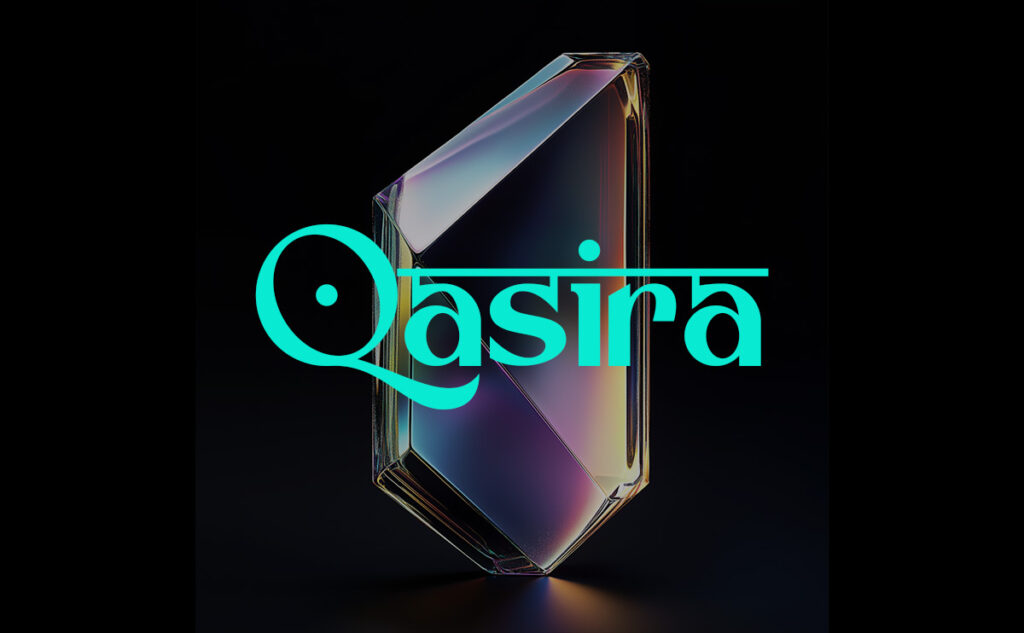
A modern sans-serif with calligraphic roots and elegant curves. Versatile for branding, invitations, and corporate design, with full multilingual support. Free for both personal and commercial use.
2. Groote
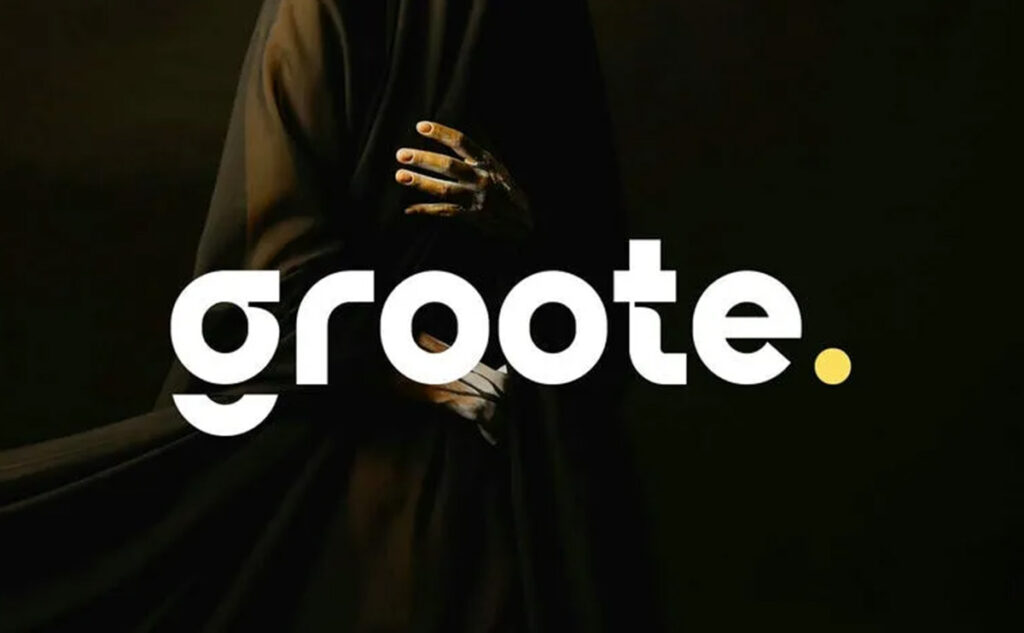
3. Biscotti
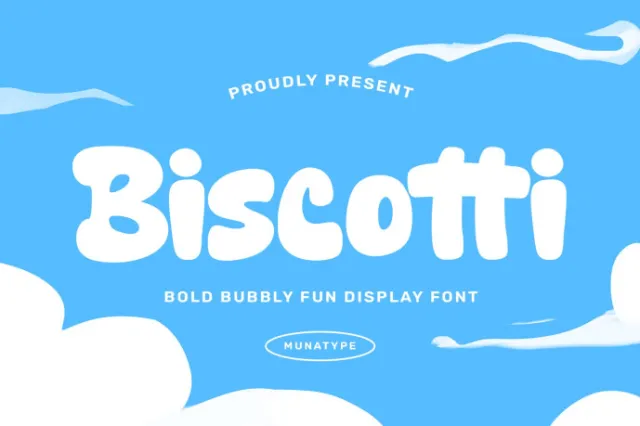
Biscotti is a bold, bubbly logo font by Munatype, featuring playful rounded letterforms that add a cheerful personality and strong impact to branding and packaging. Download Biscotti
4. Epic Pro
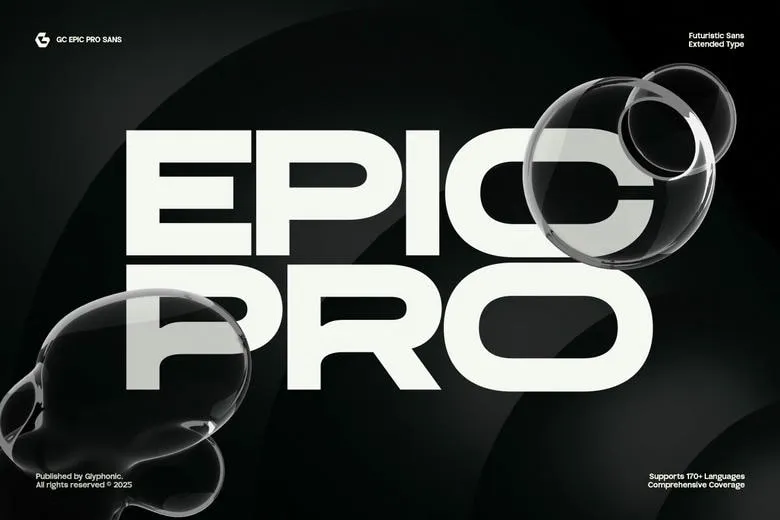
A futuristic extended sans-serif with a strong tech vibe, perfect for sports logos, sci-fi themes, and digital branding. Free for personal use; commercial license required. Download Epic Pro
5. Nativera
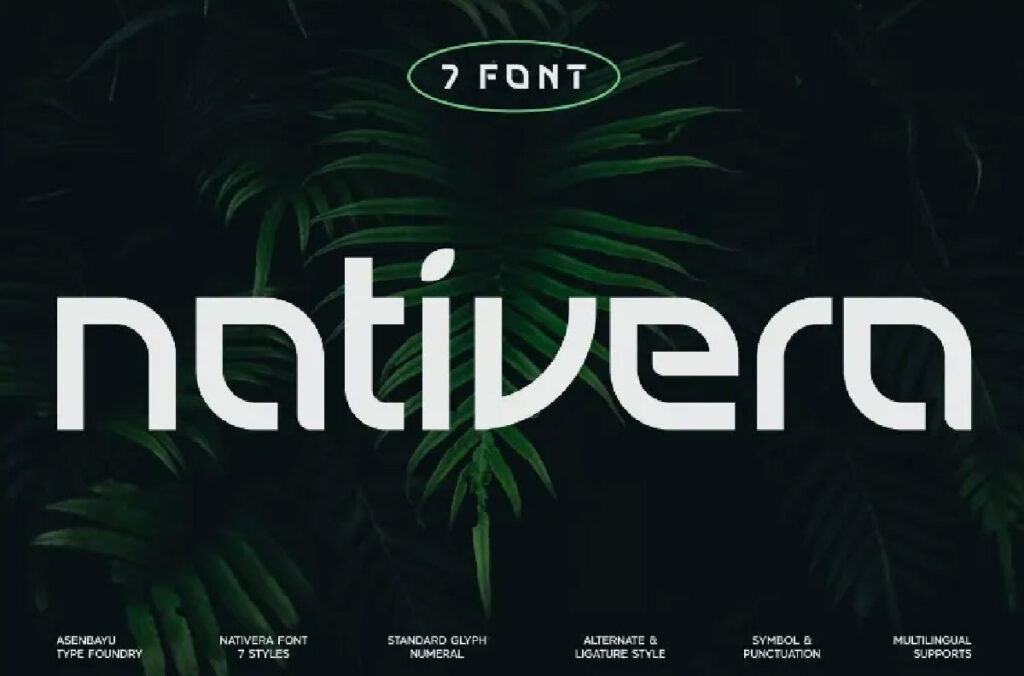
A geometric sans-serif with nature-inspired details, blending modern structure with organic flair. Well-suited for editorial design and packaging. Download Nativera
6. Maqira Vintage
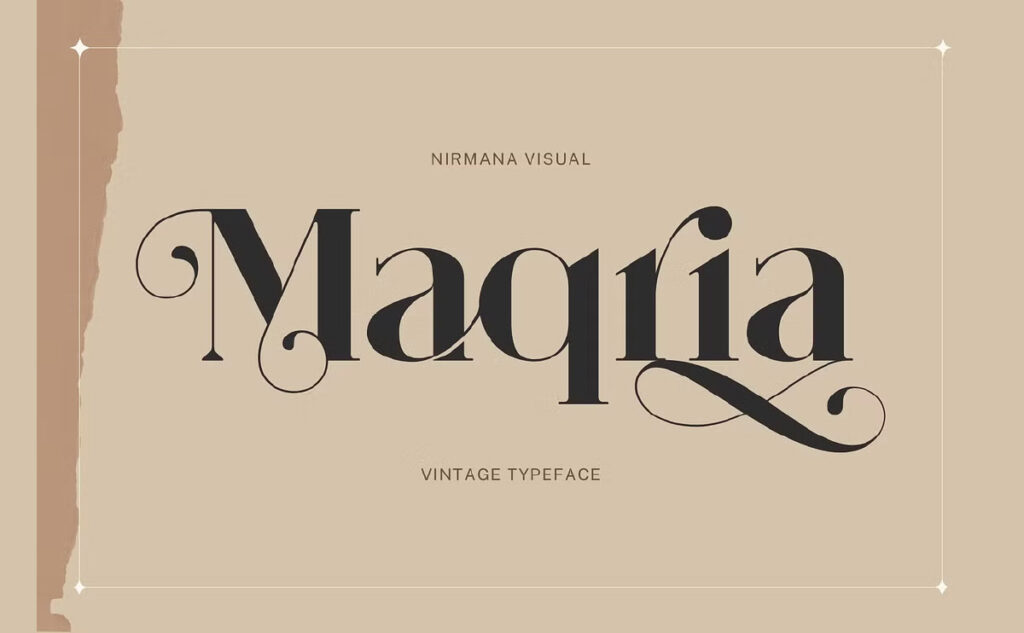
A vintage-inspired serif font that blends retro aesthetics with timeless elegance. Ideal for nostalgic branding, posters, packaging, and any design that needs an authentic, old-world character.
7. Doll Ghoom
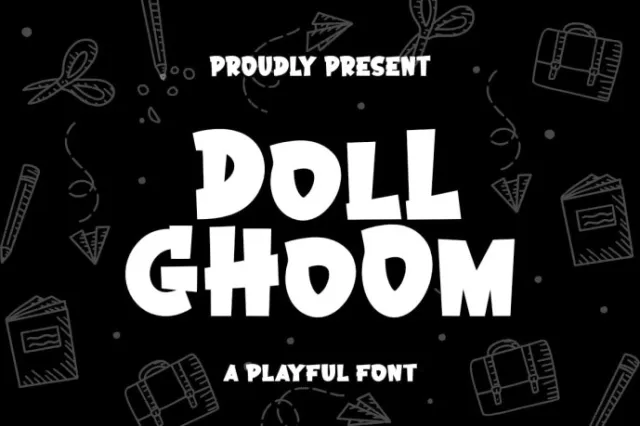
A playful, quirky script font full of personality. Its hand-drawn style makes it perfect for creative logos, children’s projects, fun packaging, or any design seeking a whimsical edge. Download Doll Ghoom
8. Saffela
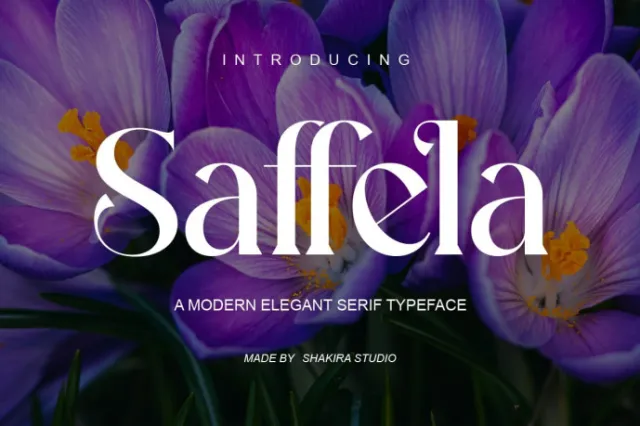
A sleek, minimalistic sans-serif that thrives in clean, modern branding. Its simplicity makes it versatile for logos, websites, editorial layouts, and professional identity systems. Download Saffela
9. After
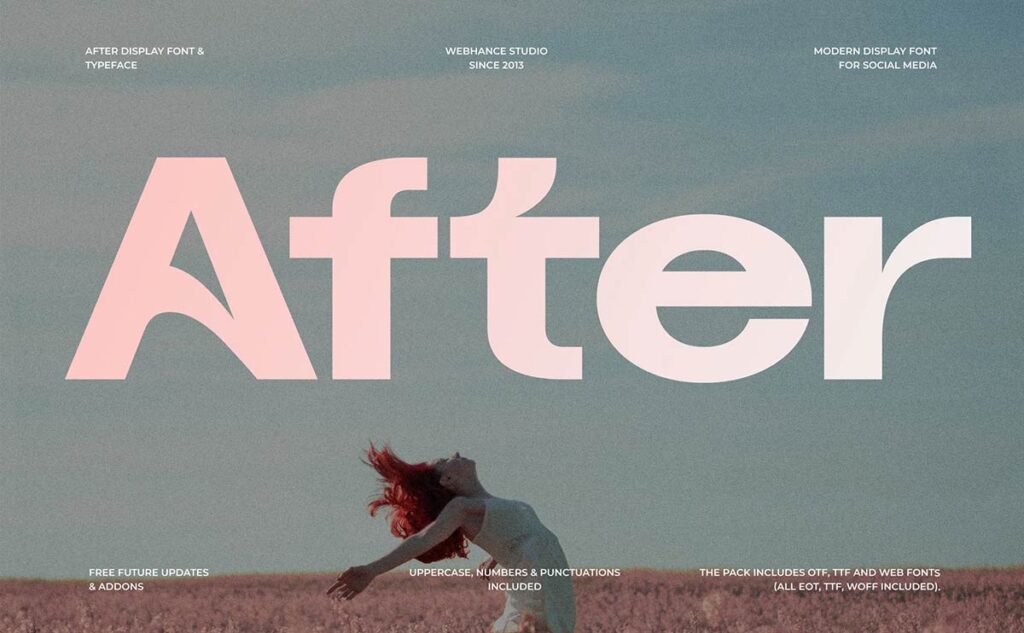
A bold display font designed to stand out. With strong, contemporary strokes, it’s well-suited for editorial headlines, impactful branding, advertising campaigns, and statement-driven design. Download After
10. Gebuk
A powerful geometric sans-serif featuring sharp edges and commanding proportions. Perfect for attention-grabbing headlines, striking logos, tech branding, and projects that demand a bold presence. Download Gebuk
11. Vogun
A sleek and modern display font with clean lines and balanced proportions. Perfect for eye-catching branding, fashion-inspired layouts, bold headlines, and digital projects that demand a contemporary edge. Download Vogun
12. Surgena
A refined geometric sans-serif with modern proportions and a professional feel. Works beautifully in branding, editorial design, websites, and corporate identity systems where clarity and style are equally important. Download Surgena
13. Castio
A bold retro serif that carries vintage charm with luxurious flair. Its thick strokes and subtle decorative details make it ideal for logos, posters, packaging, and branding that celebrates nostalgia.
14. Bakery Goods
A vintage-inspired display font with a handcrafted vibe. Suited for cafés, bakeries, craft packaging, and branding that aims for warmth, authenticity, and a touch of retro fun. Download Bakery Goods
15. Agneos
A futuristic, expanded techno-style font with bold extended letterforms. Perfect for gaming, high-tech branding, sci-fi themes, and digital products that want a cutting-edge presence. Download Agneos
16. Maison Paris
An elegant, classic serif font with refined strokes and timeless sophistication. Perfect for luxury fashion branding, editorial spreads, packaging, and upscale visual identities. Download Maison Paris
17. Slabion
A bold slab-serif combining strength with readability. Ideal for striking logos, posters, and branding that demands both authority and personality. Download Slabion
54. Quivert
Quivert – a bold vintage serif display font blending classic charm with strong character and soft edges. Available for personal use Download Quivert
55. Ice Cream
Ice Cream — a curvy, fun display font by Positype (Neil Summerour), perfect for light-hearted branding like food packaging, children’s books, and anything with a cheerful vibe. It comes in two styles (Standard & Slant), is commercial with license required, and reflects influences of fonts like Kari and Juicy. Download Ice Cream